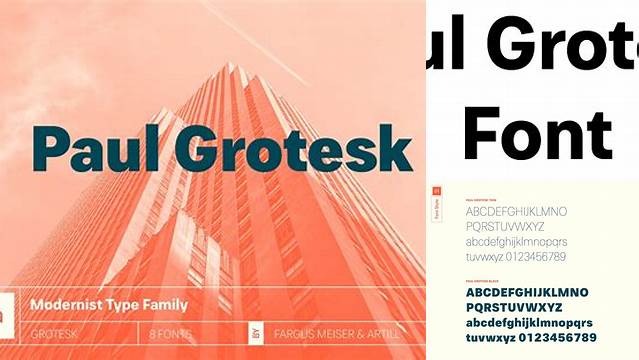
Hey guys! Ever stumbled upon a font that just clicks? For many designers, Paul Grotesk is one of those fonts. It's got this classic, clean vibe that makes it super versatile for tons of projects. But finding it for free? That can be a bit of a quest. So, let's dive into everything you need to know about the Paul Grotesk font, including where you might find a free download and how to use it effectively. Let's get started!
1. What is Paul Grotesk Font?
So, what exactly is Paul Grotesk? It's a neo-grotesque sans-serif typeface, meaning it's a modern take on the classic grotesque fonts that were popular in the late 19th and early 20th centuries. Think of fonts like Helvetica or Univers – Paul Grotesk shares a similar clean and neutral aesthetic. This makes it incredibly versatile for a wide range of design applications. Paul Grotesk boasts excellent legibility, a harmonious character set, and a timeless appeal. It is often chosen for projects needing a touch of elegance mixed with modern simplicity. What sets it apart is its subtly crafted letterforms that offer both readability and a distinct visual presence. These fonts work beautifully in everything from branding and logos to website copy and print materials.
2. The History and Inspiration Behind Paul Grotesk
Understanding the history behind a font can really help you appreciate its design. While there isn’t a single, definitive origin story for a font simply called “Paul Grotesk,” the name itself hints at its inspiration: the grotesque or grotesk style. These typefaces emerged as a reaction to the ornate and decorative fonts of the Victorian era, emphasizing simplicity and functionality. Paul Grotesk, in this context, draws inspiration from these early sans-serif designs, refining them for contemporary use. Its design reflects the minimalist aesthetic that became popular in the mid-20th century, focusing on clean lines, even strokes, and a balanced appearance. Understanding this lineage allows designers to use Paul Grotesk intentionally, paying homage to its historical roots while applying it in modern contexts. The font's clean, unadorned style also aligns with the principles of the Swiss Style, which emphasizes clarity, objectivity, and functionality. Its use of uniform strokes and geometric forms makes it highly legible and adaptable, suitable for various applications from print to digital media.
3. Key Characteristics and Features of Paul Grotesk
What are the defining features that make Paul Grotesk stand out? First off, it's a sans-serif font, meaning it doesn't have those little decorative strokes (serifs) at the ends of the letters. This gives it a clean, modern look. Its letterforms are generally geometric and uniform, contributing to its readability and minimalist aesthetic. Key characteristics include its even stroke weight, consistent letter spacing, and well-balanced proportions. The font also has a relatively large x-height (the height of lowercase letters), which further enhances readability. Paul Grotesk often includes a variety of weights and styles, from light to bold, and sometimes italic versions, allowing for flexibility in design projects. These features make it an excellent choice for body text as well as headlines. Its neutrality allows it to blend seamlessly with various design styles, while its subtle personality adds character without being overpowering. Understanding these key characteristics helps designers effectively use Paul Grotesk in different contexts, ensuring that it complements and enhances the overall design.
7. Similar Fonts to Paul Grotesk (Alternatives)
9. Using Paul Grotesk in Graphic Design Projects
Now for the fun part: putting Paul Grotesk to work! This font is a workhorse – it’s super versatile and can be used in tons of different projects. Think logos, websites, brochures, posters... you name it! Its clean and neutral aesthetic makes it a great choice for both headlines and body text. Experiment with different weights and styles (if available) to create visual hierarchy and add interest to your designs. Paul Grotesk's legibility makes it particularly well-suited for projects with a lot of text. Its understated elegance can enhance the overall look and feel of a design, adding a touch of sophistication without being overly flashy. Consider using it in branding materials to convey a sense of professionalism and clarity. In web design, it can improve readability and user experience. The key is to balance its neutrality with other design elements to create a cohesive and visually appealing result. Its adaptability makes it a valuable asset in any designer’s toolkit.